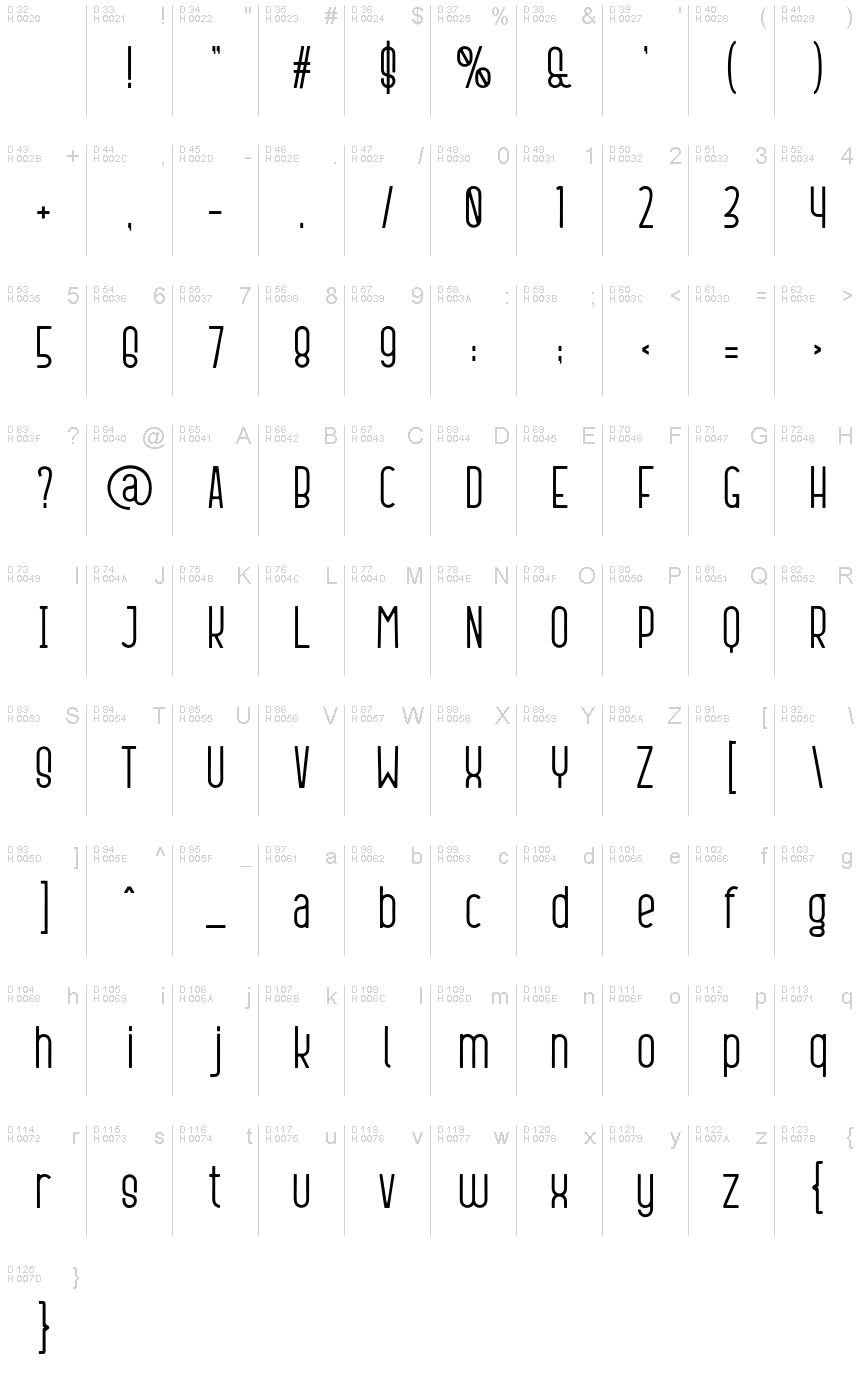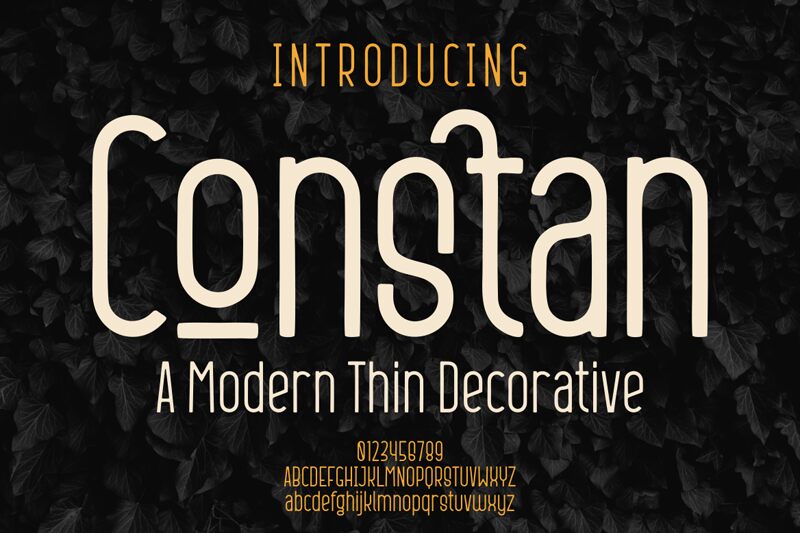
Constan
Constan font is designed by Gilang Ternadho. Constan is a modern, minimalistic sans serif typeface featuring monospaced, rounded edges and uniform stroke width. This free modern sans serif typeface has contemporary distinctive features of open aperture and condensed looking moody yet friendly vibe that stands out in any design.
Constan font lends itself perfectly to branding materials, logo designs, promotional usage in print or digital form, cover design or any text overlays to background images. It’s perfect for creating head-turning bold headlines & full-page text heavy layouts with beautiful large letters taking center stage!